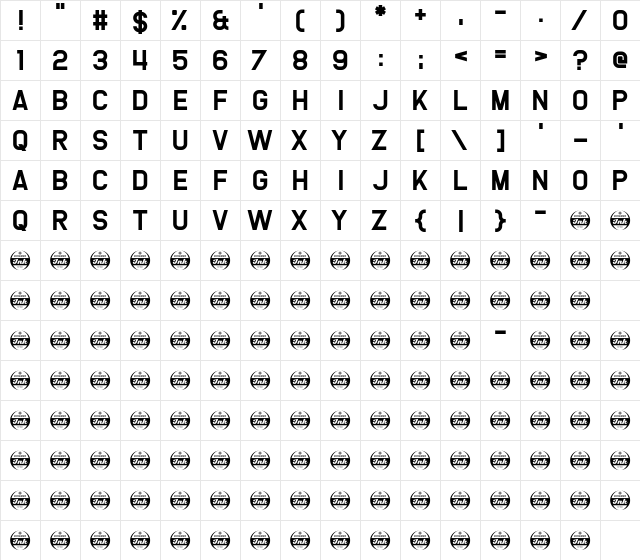
We Are Survivors Regular
| Designer | Allison James |
Design Context for We Are Survivors Typeface
We Are Survivors takes a measured approach to typography — its balanced proportions and neutral character make it a reliable workhorse for both digital and print work.